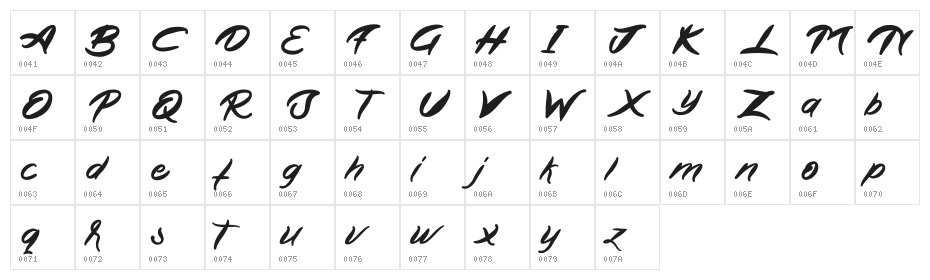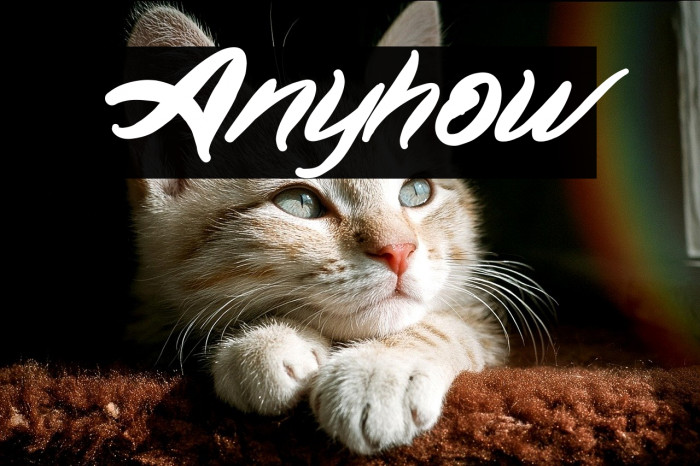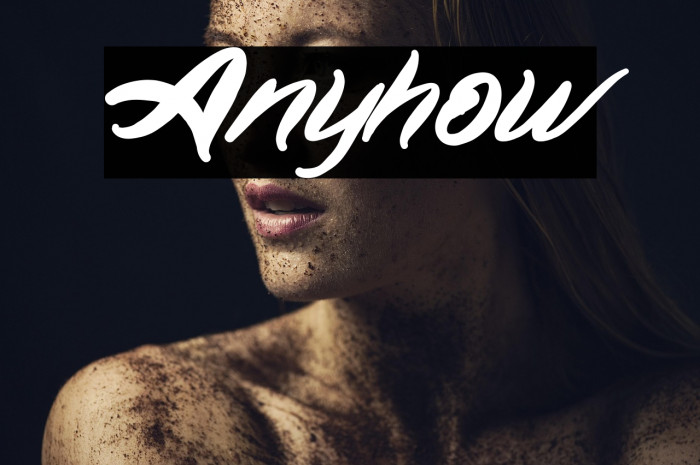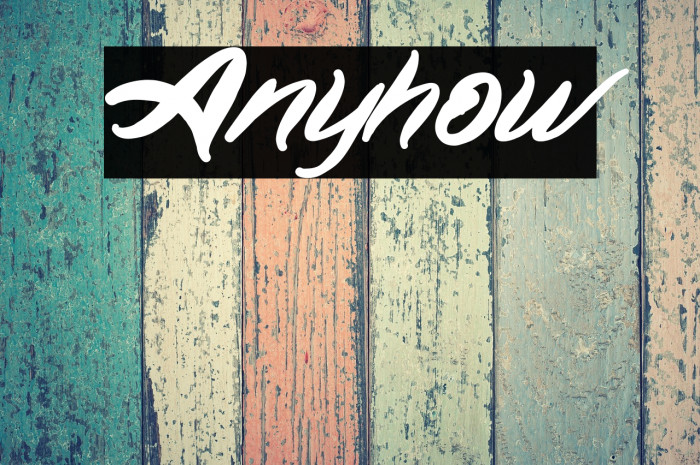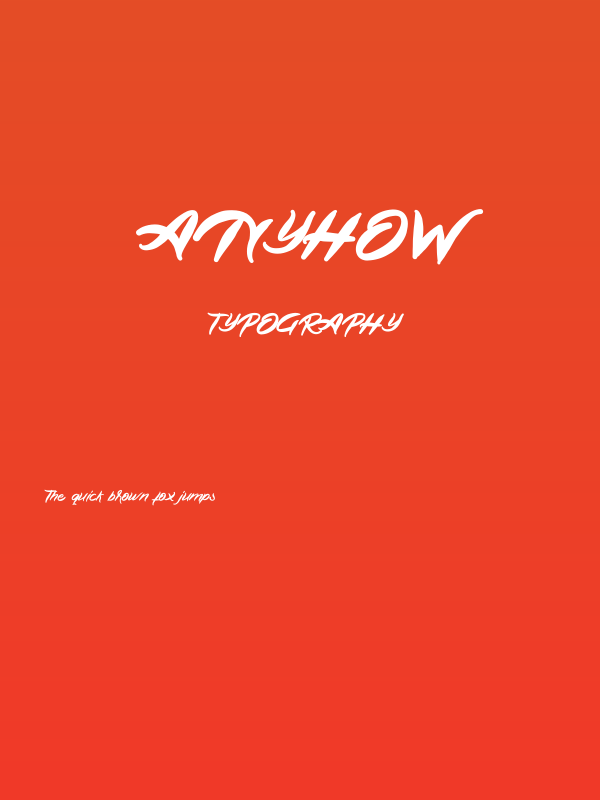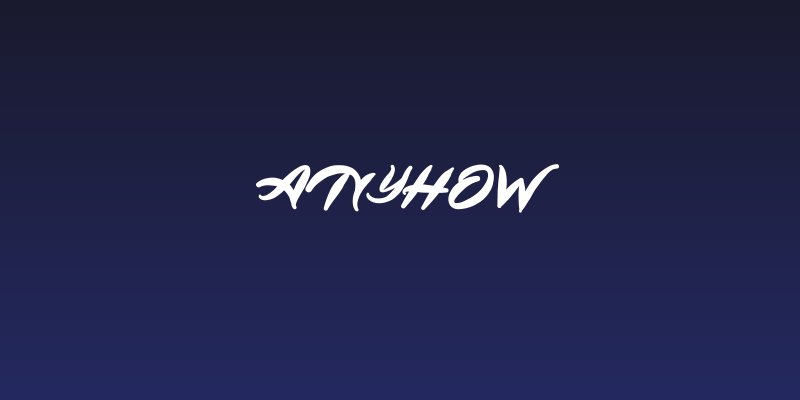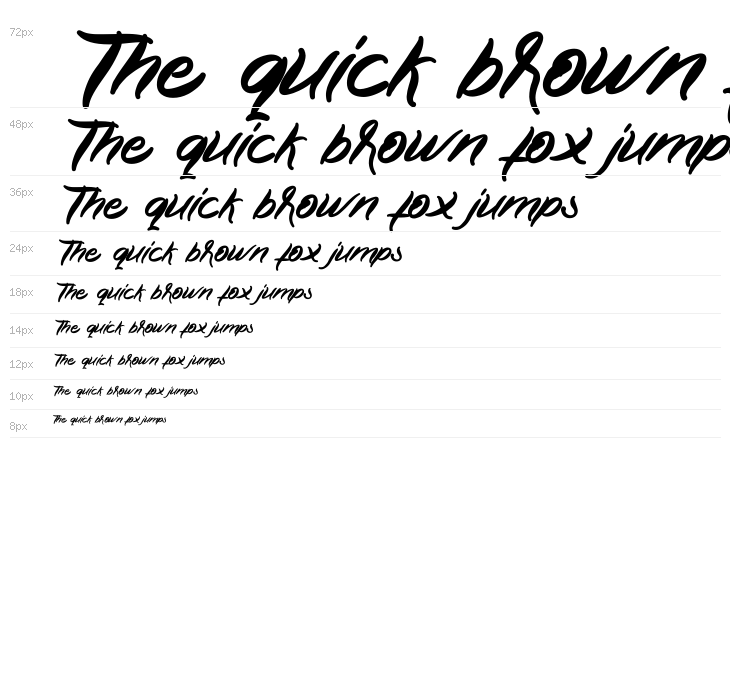
Anyhow Font
Anyhow Description
This font features a dynamic and fluid script style, characterized by its elegant and flowing strokes. The letters are interconnected, creating a sense of movement and rhythm. The uppercase letters are bold and expressive, while the lowercase letters maintain a consistent flow with slightly exaggerated curves. The font's overall appearance is both artistic and sophisticated, making it suitable for creative and decorative purposes. The strokes vary in thickness, adding a touch of contrast and enhancing its visual appeal.
| Use Case | Logos, Headlines, Invitations |
| Proposed Projects | Ideal for wedding invitations, greeting cards, branding, and logo design. |